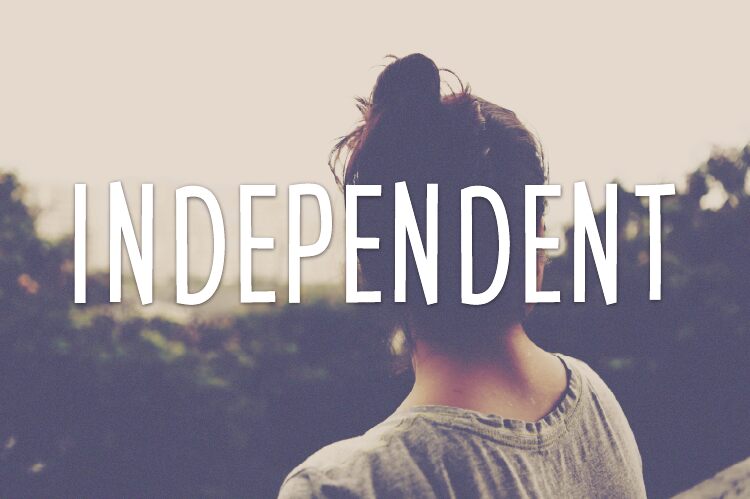
Independent font family designed by Hanna Bie contains 2 font styles. The free font conveys a tall, straightforward, and clean demeanor that’s minimalistic yet professional. The fancy font is equipped to give your text a modern and contemporary look. With its strong design, the typeface communicates independence and strength, to do justice to its name. This font’s visual beauty and appeal can be especially useful in today’s branding and advertising world that we live in.
Independent fonts are designed for contemporary applications that include digital interfaces and corporate branding. It is also ideal for digital ads, posters, and other advertising applications. Social media posts can also hugely benefit from the textual content being written in this font. Additional applications include typography art, product and packaging designs, and much more.